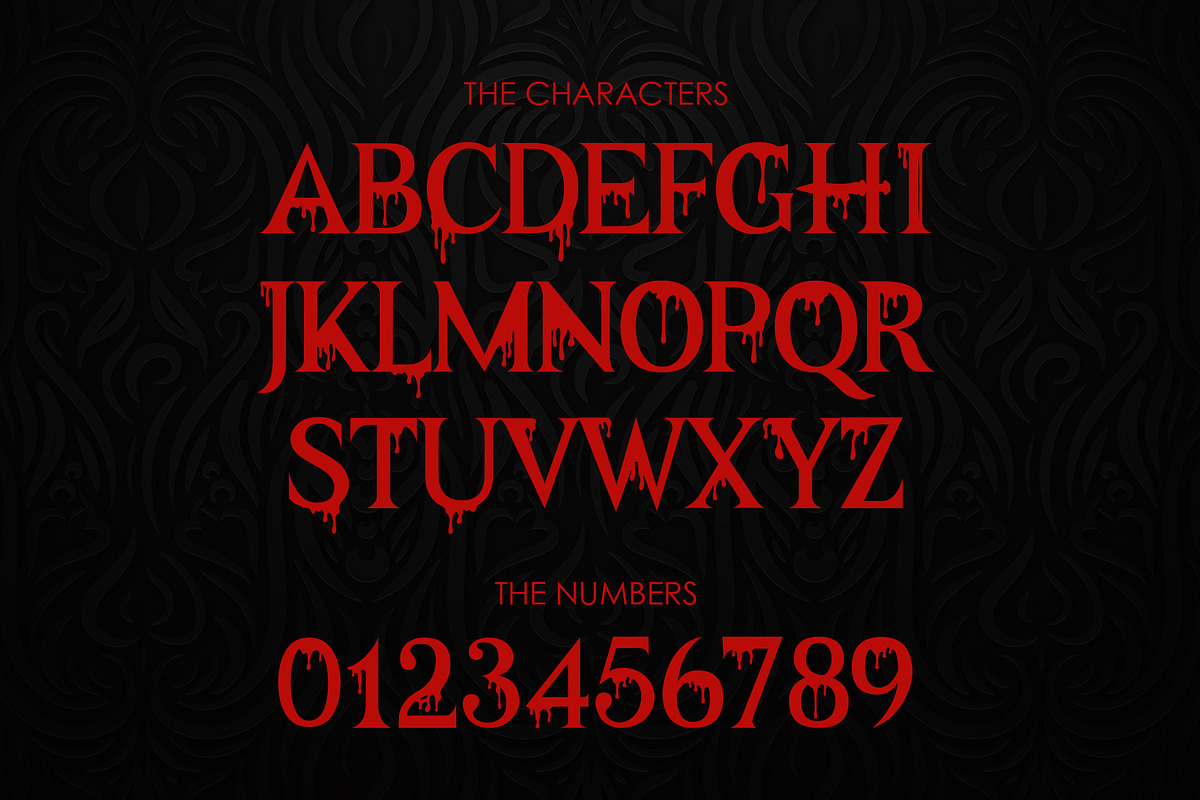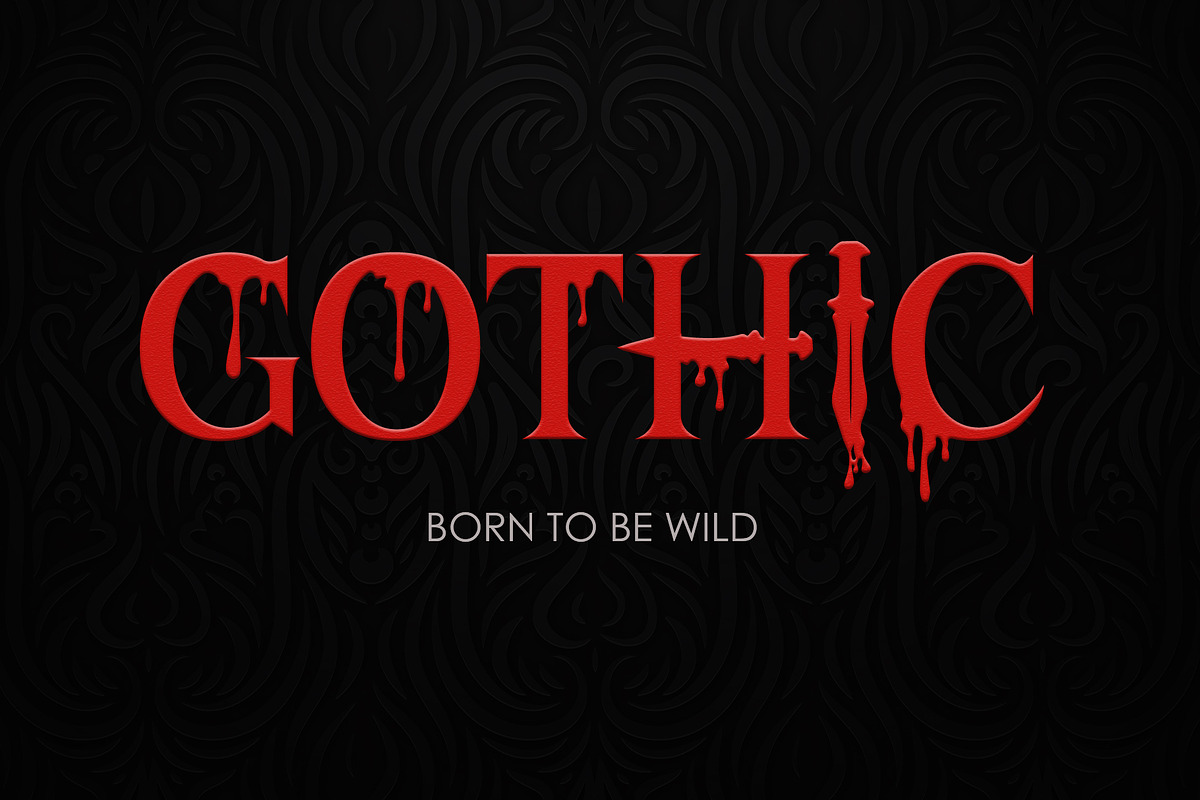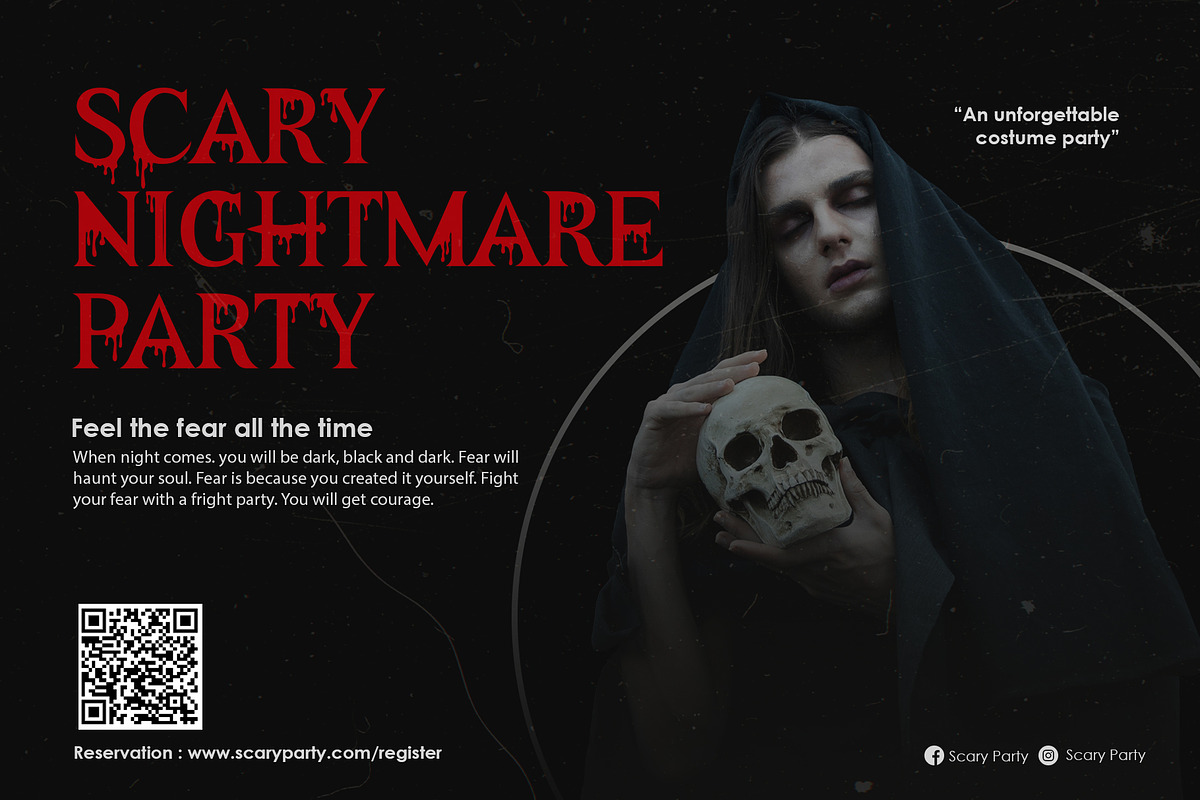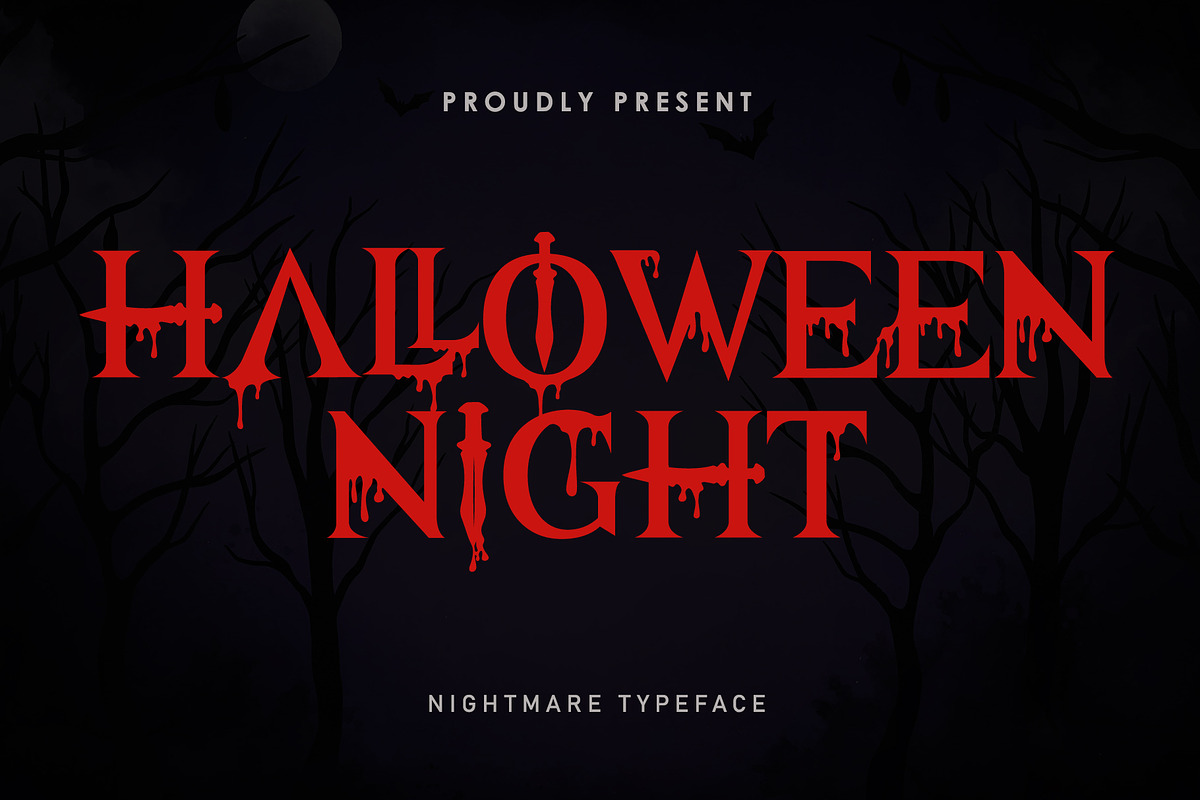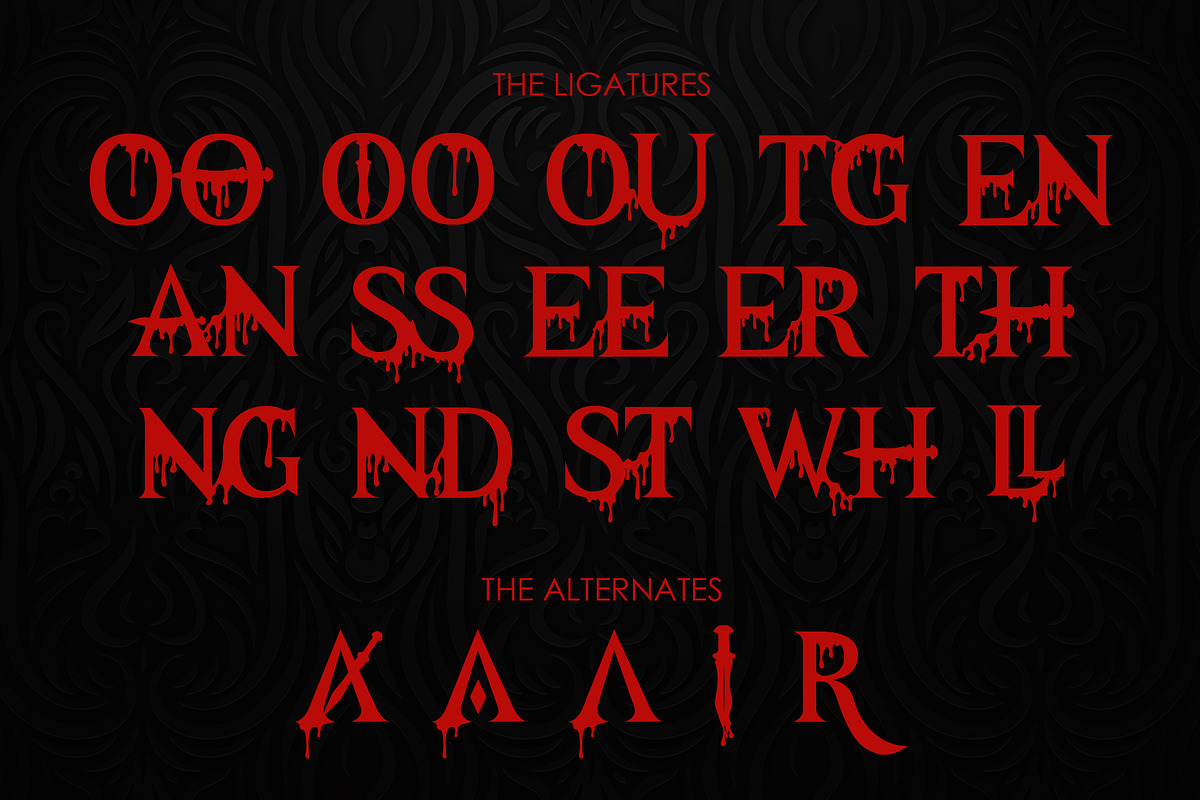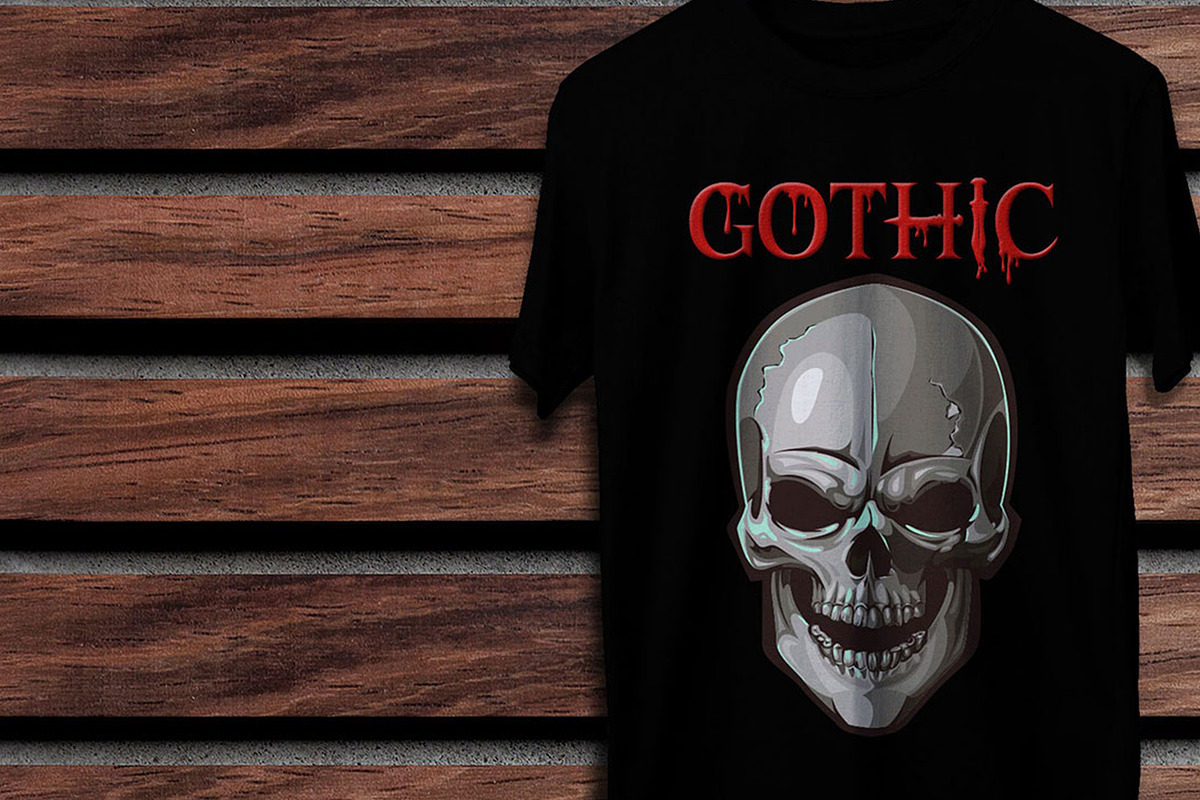
Halloween Night
Halloween Night is a bold and horror display font. Expertly designed to make your creation look out of this world, this font has the potential to take your creative ideas far further. Perfectly fit for your horror design and also unique alternative for display design.
- Only Bold Font Display A-Z
- Stylistic Alternate